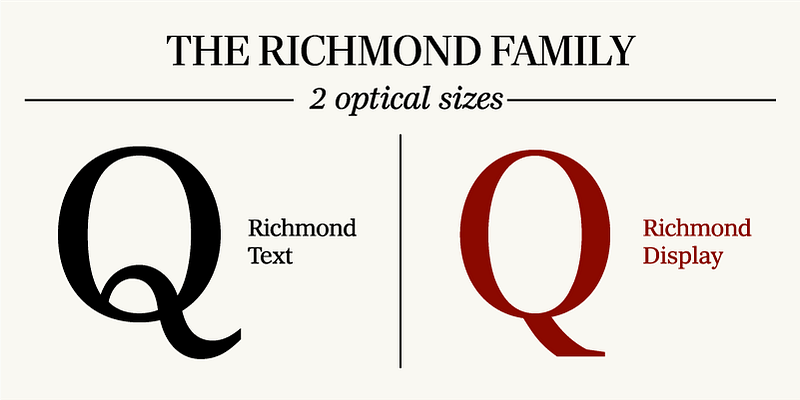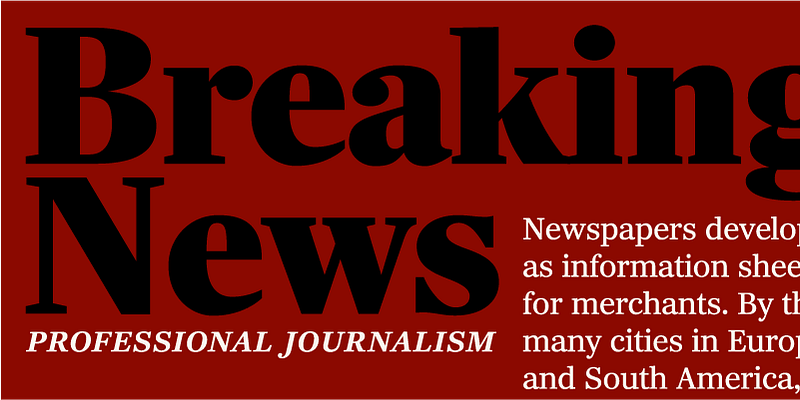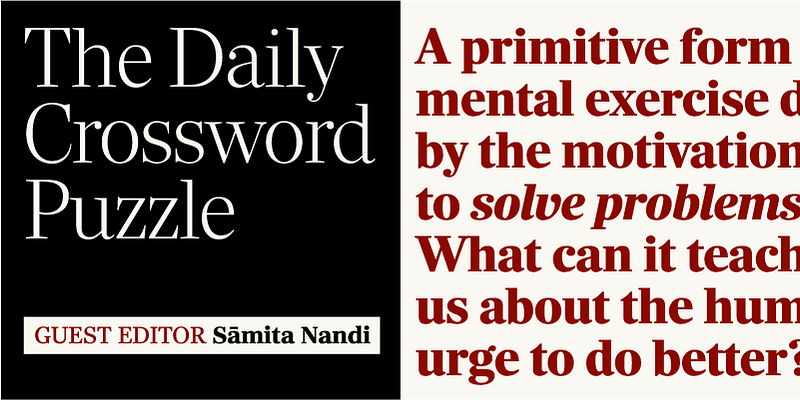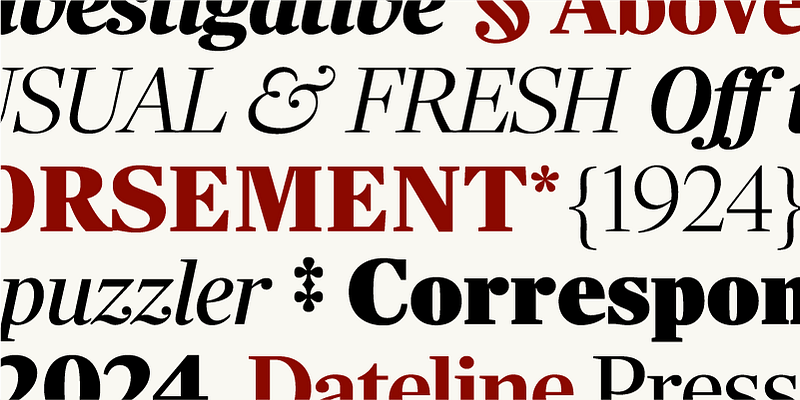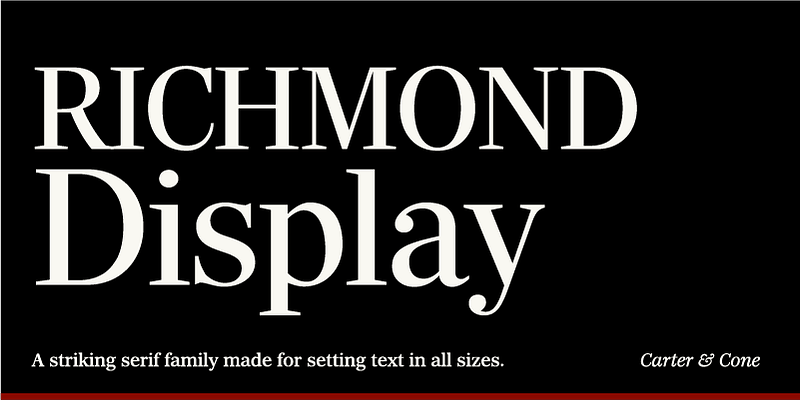
Matthew Carter’s Richmond CC is a striking serif family made for setting text in all sizes. Initially commissioned for a major daily British newspaper redesign, it has been expanded into a complete family with contributions from Jill Pichotta and Richard Lipton of The Type Founders. The crisp quality of the sharp serifs and large x-height are perfect for invigorating typography. Richmond is available in Display and Text, matching Italics, and four variable fonts, offering endless possibilities.
Carter & Cone has designed some of the world’s most celebrated typefaces and award-winning custom fonts. Elegant, balanced, useful: these words describe the fonts produced by Matthew Carter and Cherie Cone’s partnership. While their early work forms the bedrock of modern typography, their newer typefaces continue to enrich and expand it. The consistency and thoroughness of their designs are a direct result of their early training in industries without an undo, like punchcutting and calligraphy.